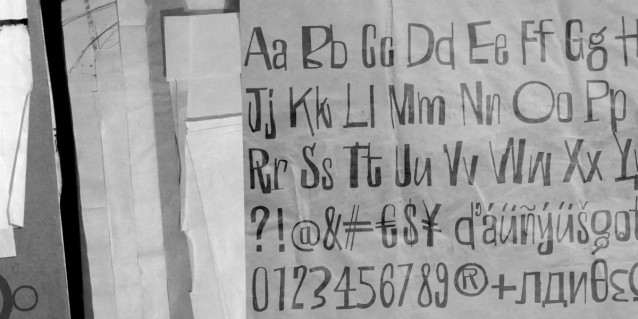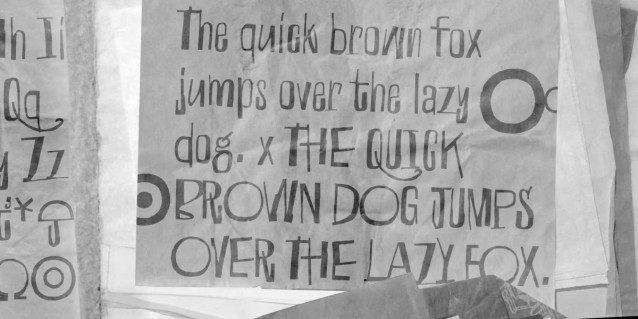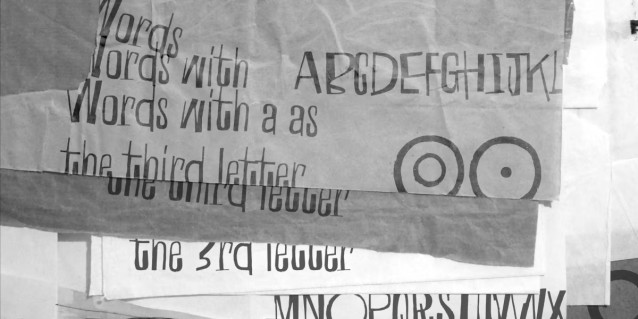
Words With A As The Third Letter Font
Words With A As The Third Letter Font, perfectly fit for branding, logo, wedding things, greeting cards, fashion, lookbook, marketing promotion, anytime you want to look fancy elegant but still casual.